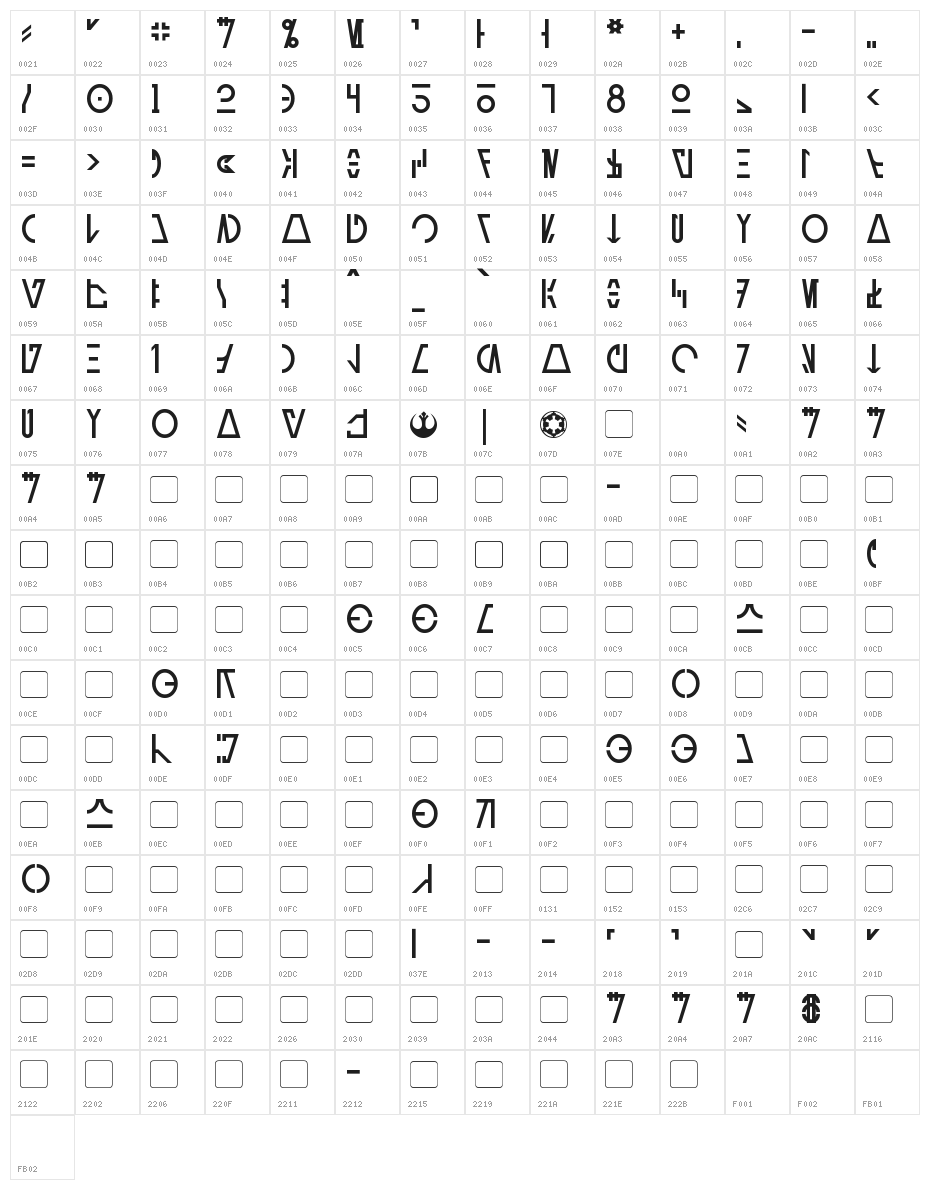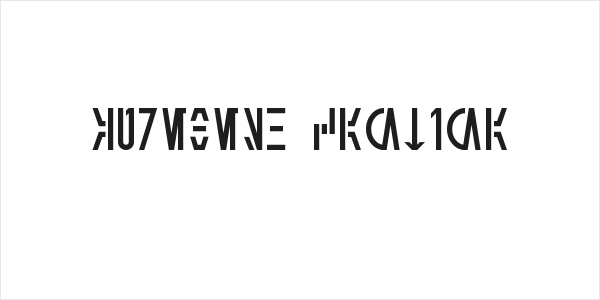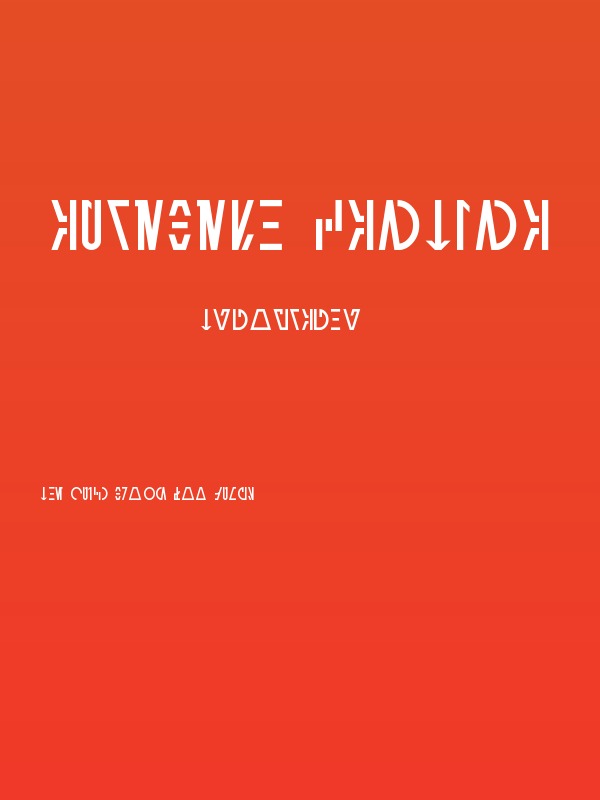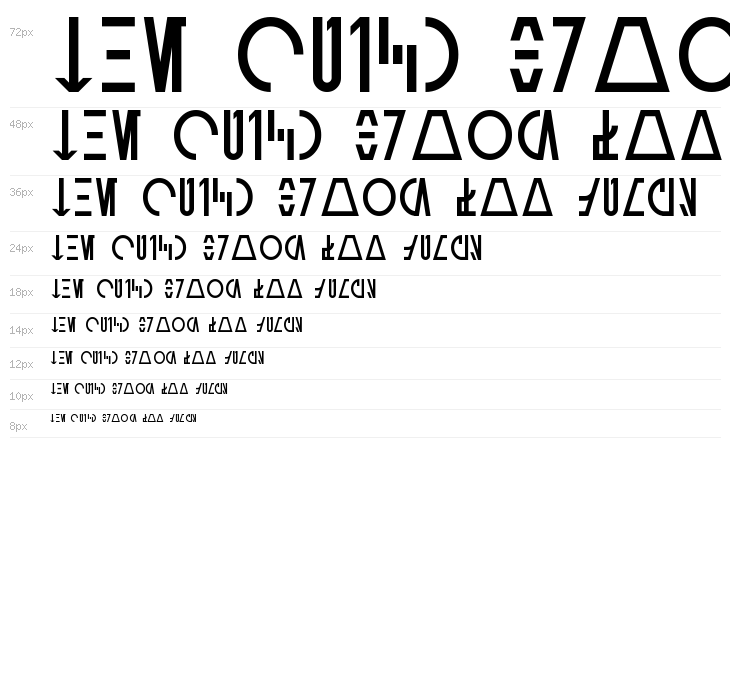
Aurebesh Cantina Font
Aurebesh Cantina Description
This font is a stylized representation of a fictional script, characterized by its angular and geometric shapes. Each character is distinct, with sharp edges and a futuristic aesthetic that evokes a sense of mystery and otherworldliness. The design is bold, with thick strokes that ensure high visibility and impact. The characters are evenly spaced, providing a balanced and cohesive look. This font is ideal for creating an immersive experience in science fiction or fantasy settings, where an alien or ancient script is required. Its unique style makes it stand out, capturing the imagination and adding depth to creative projects.
| Overall Style | Futuristic, Mysterious |
| Use Case | Logos, Themed Events, Immersive Experiences |
| Proposed Projects | Ideal for science fiction or fantasy projects, themed events, or immersive experiences requiring an alien or ancient script. |